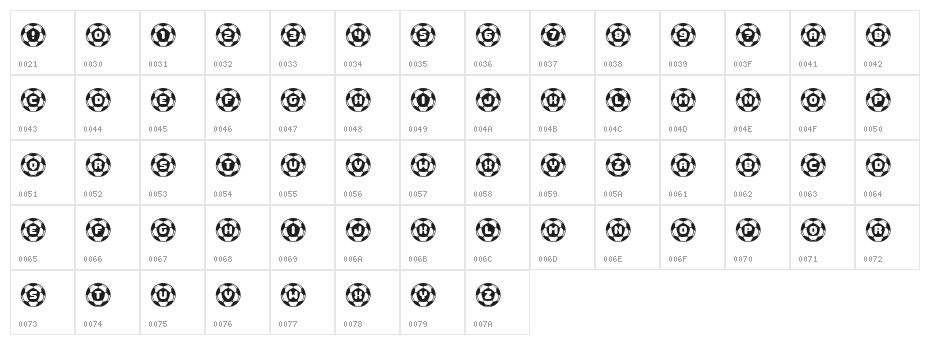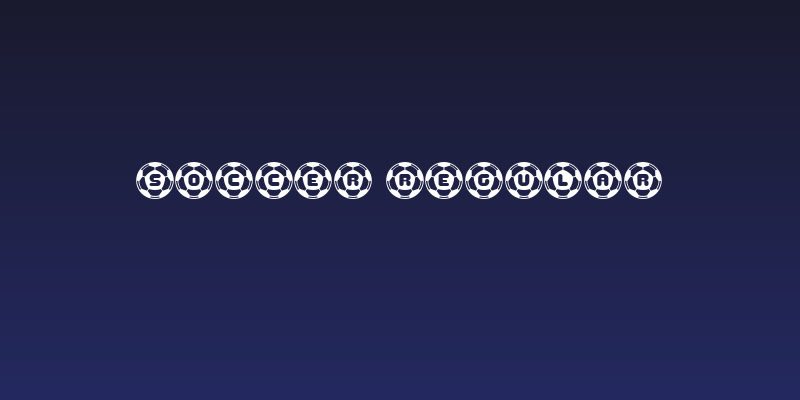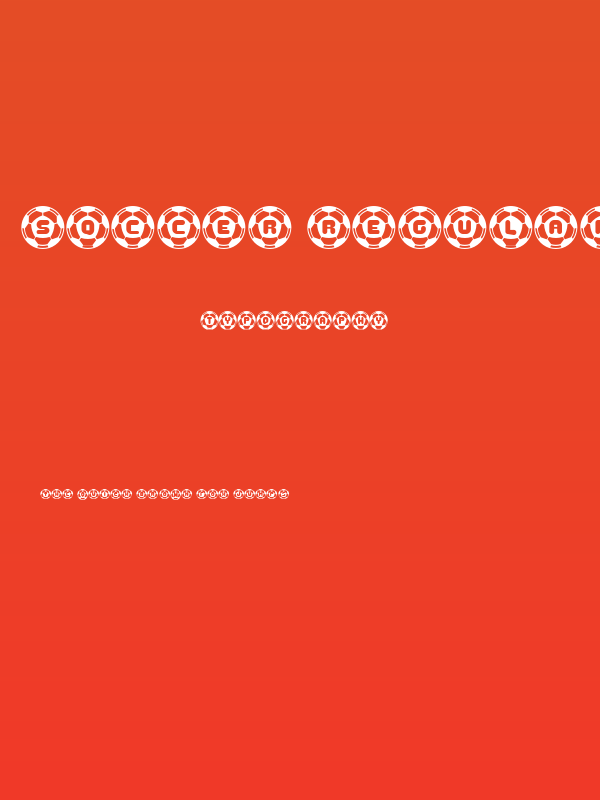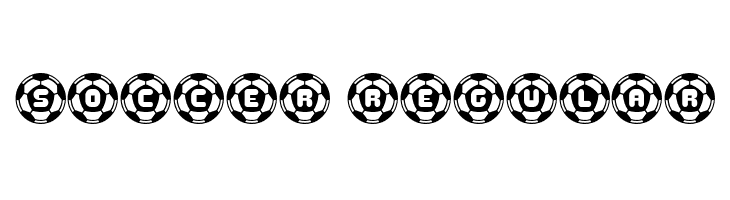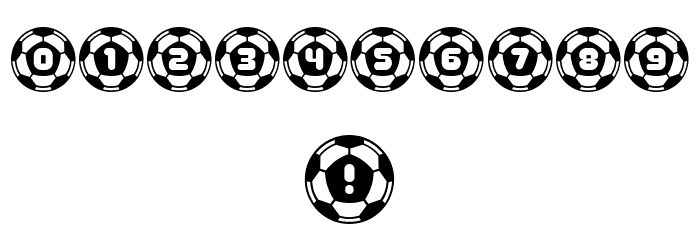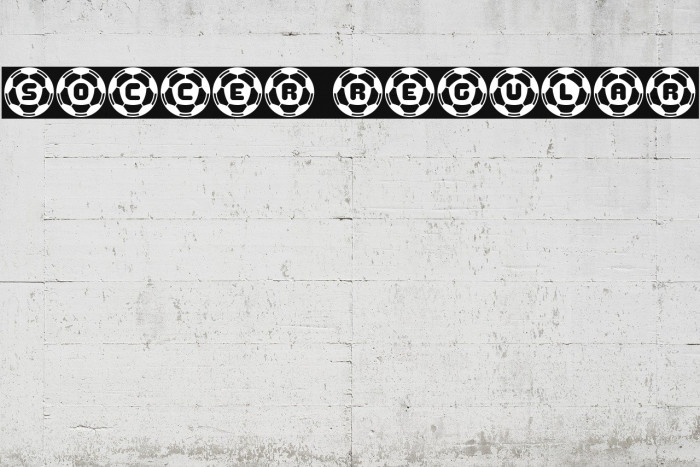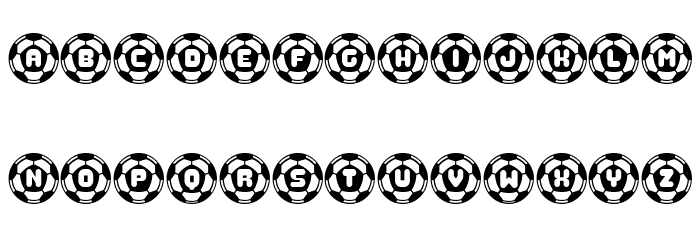
Soccer Regular Font
Soccer Regular Description
This playful and thematic font features each character encased within a soccer ball design, making it ideal for sports-related projects. The letters and numbers are bold and clear, ensuring readability while maintaining a fun and engaging appearance. The unique style captures the essence of soccer, with each character distinctly set against the black and white pattern of a soccer ball. This font is perfect for creating eye-catching headlines, posters, and event materials that require a sporty and energetic vibe.
| Overall Style | Playful, Sporty, Thematic |
| Proposed Projects | Ideal for sports event posters, team merchandise, youth soccer league materials, and playful sports-themed invitations. |